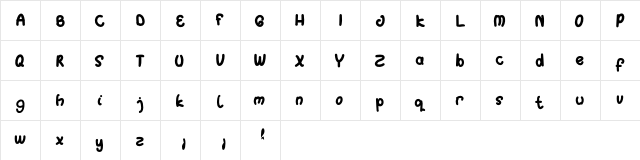
Singo Regular Font Preview
Singo Regular
Singo Regular Font Details
Design Context for Singo Typeface
Singo is a composed and adaptable typeface that performs quietly and consistently across a wide range of design contexts.